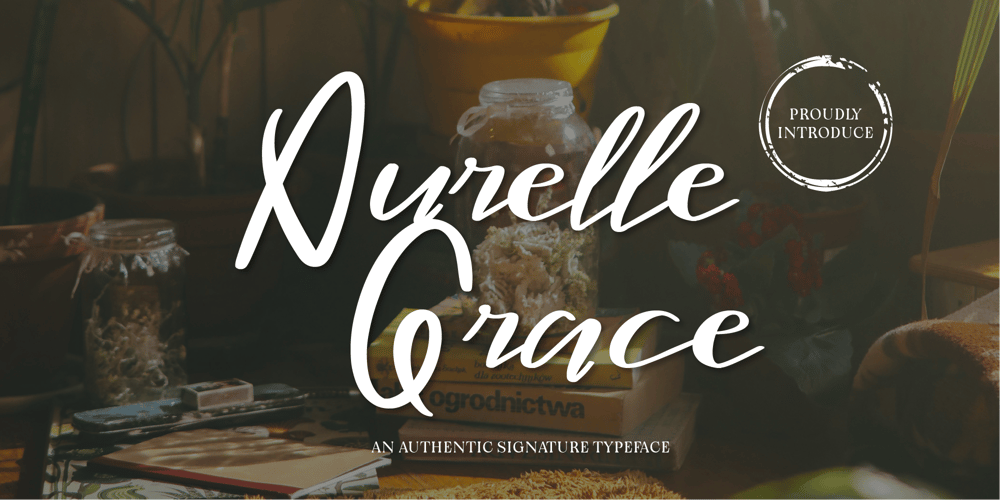
CF Aurelle Grace
CF Aurelle Grace font
CF Aurelle Grace Font Family was designed by Gilang Mei Nugraha, Frederik Aristaputra and published by Creatifont Studio. CF Aurelle Grace contains 1 styles and family package options. Aurelle Grace is a sophisticated handwritten font that exudes authenticity and charm through its flowing, natural strokes and soft, organic curves. With its signature-inspired design, this typeface balances elegance and casualness, making it ideal for branding, invitations, and logos. The bold, expressive capital letters pair seamlessly with the fluid, dynamic lowercase, creating a cohesive and versatile style. Perfect for adding a personal, upscale touch, Aurelle Grace captures the essence of warmth and individuality in every letter.A SUMMARY OF WHAT’S INCLUDED:- Standard Character A-Z, a-z, 0-9, Punctuation & symbols- Regular- Multilingual Support- Works on PC & Mac- Simple installation- Accessible in Adobe Creative Suite (Ai, Ps, Id, etc.) even work on Microsoft Word.- PUA Encoded Characters – Fully accessible without additional design software.🌟If you come across any issues or notice anything we might have overlooked while using this product, please feel free to reach out to us. We greatly value your feedback as it helps us enhance and refine our products. Thank you!